Typography will always be a vital part of design and is something you definitely need to stay up-to-date on. And with so many options out there nowadays we thought it would be helpful to ask some industry experts to create a selection of the best 2024 fonts.
We let a team of 7 different designers put together a selection of free fonts and premium fonts, that range from display fonts, serifs, mono fonts, scripts, and sans serifs. We know how long the process of finding that perfect font can be during a new design project so hopefully, this list will help you out.
To create this list of the best 2024 fonts they used the most common font platforms such as Adobe Fonts (offering free fonts for every Creative Cloud member), MyFonts, Google Fonts, and several lovely independent type foundries. Most of us are familiar with the most popular fonts in graphic design, but you’ll probably want to avoid using the “obvious” fonts and use something more original instead.
50 of the best 2024 fonts
1. Venice Blvd
Recently, the wonderful designer duo Amy Hood and Jen Hood from Hoodzpah were included in the evergrowing font library from Adobe Fonts. With several typographic beauties from the sisters being added to the platform, Venice Blvd is definitely one of our favorites. With their amazing roster of typefaces, they definitely are among our favorite Adobe fonts and it’s amazing that some of their releases are now made available as free fonts.With 4 different weights, 4 italics, and plenty of extra symbols, this retro-inspired font is the perfect choice for any project that needs to bring some nostalgia to the table. Next to the 5 fonts that are currently available on Adobe Fonts, they have built some other lovely typefaces as well that you need to check out.
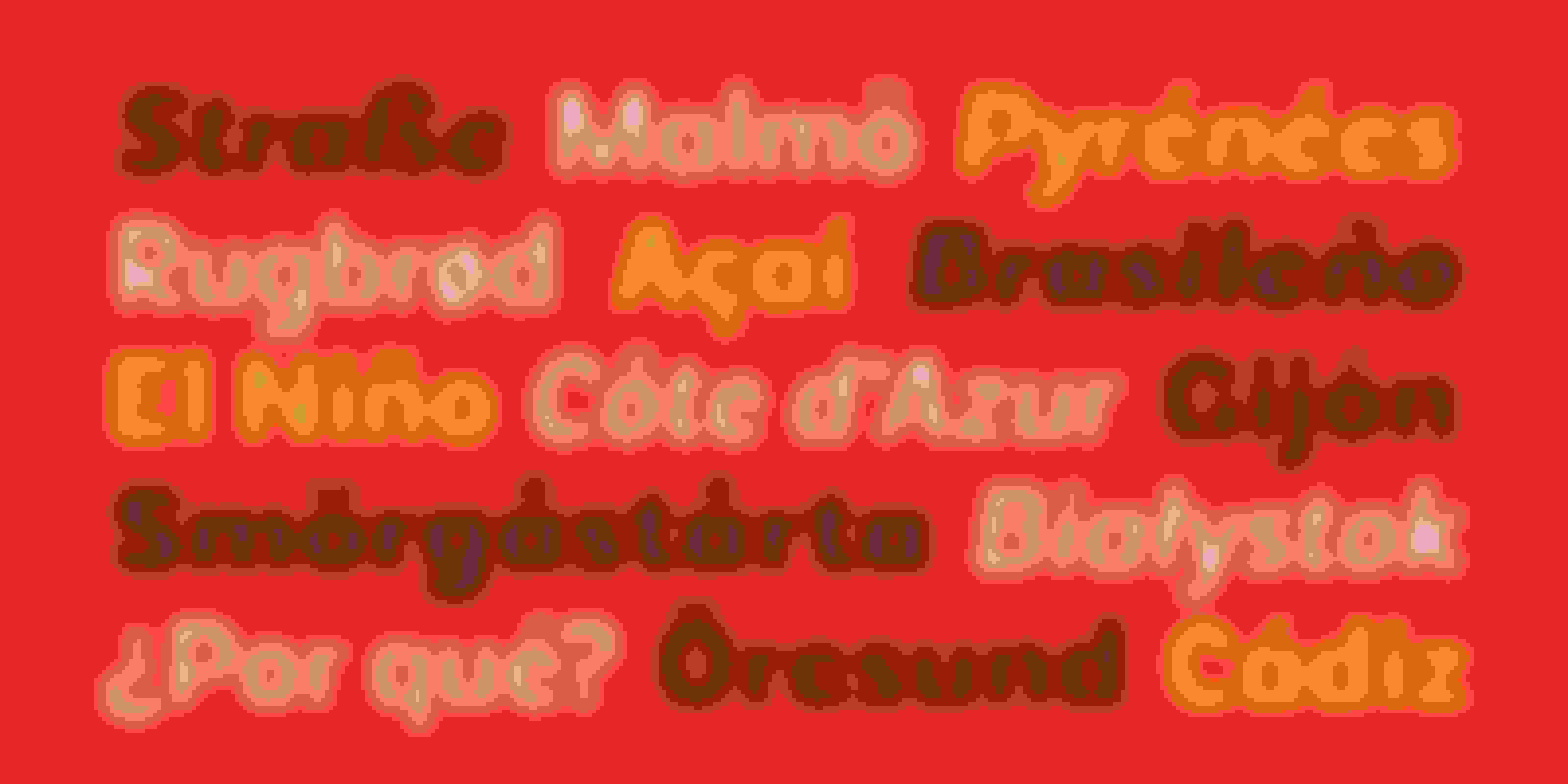
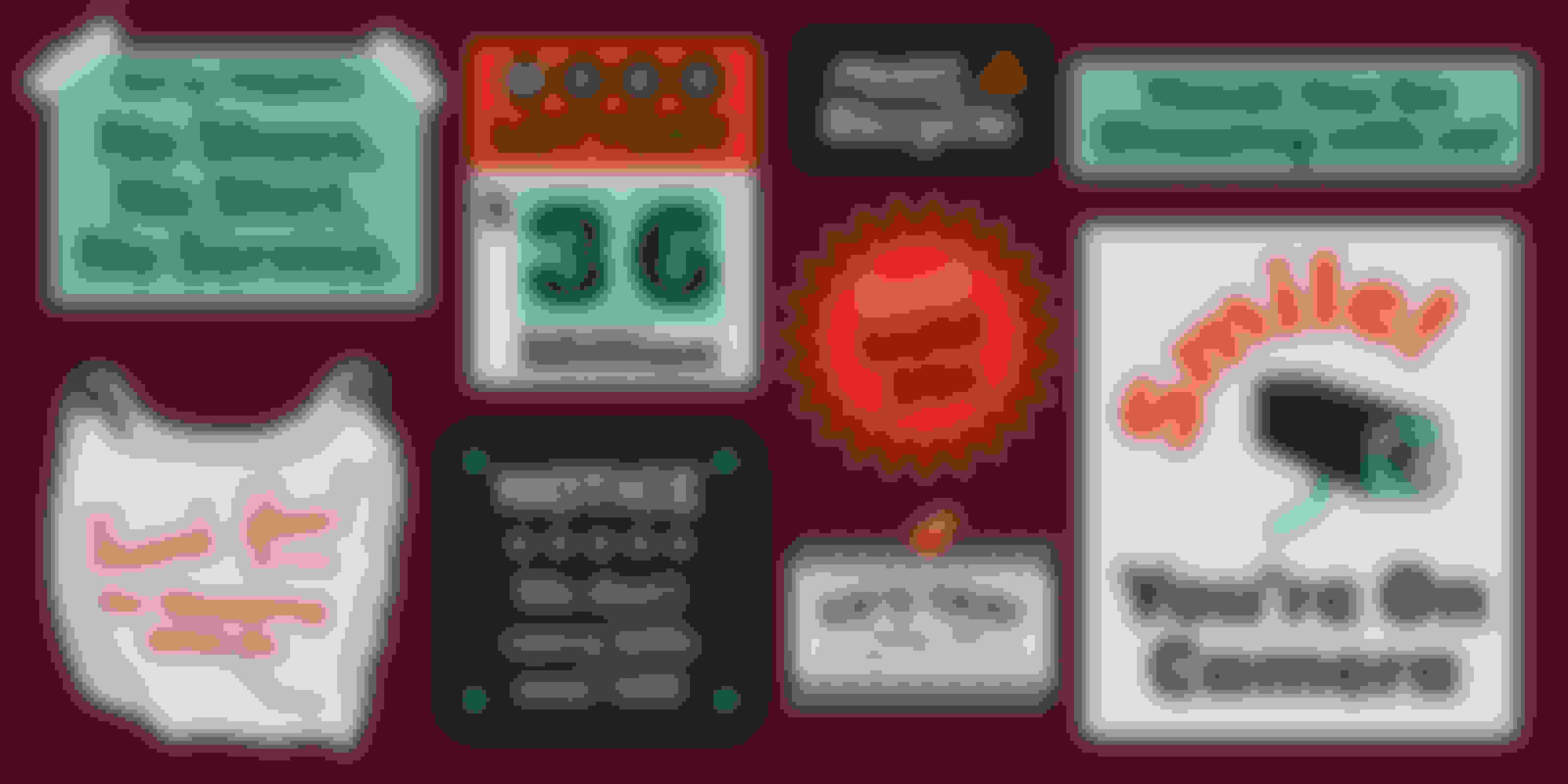
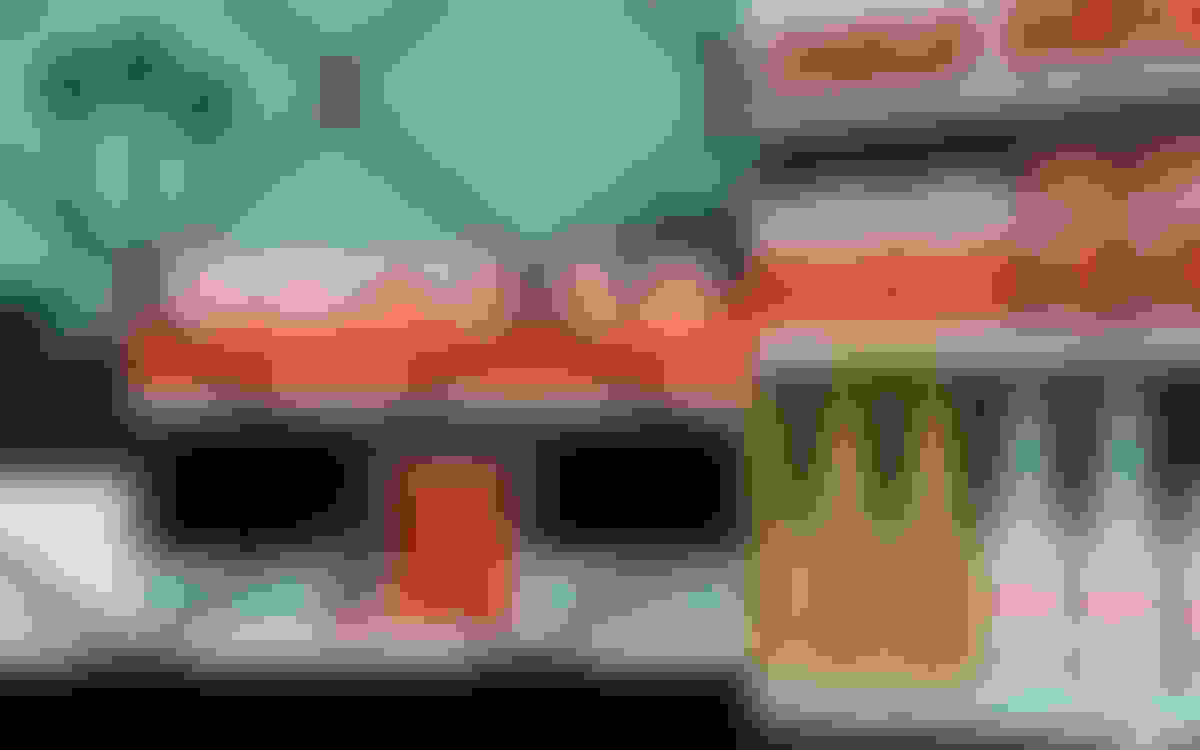
2. Faxi
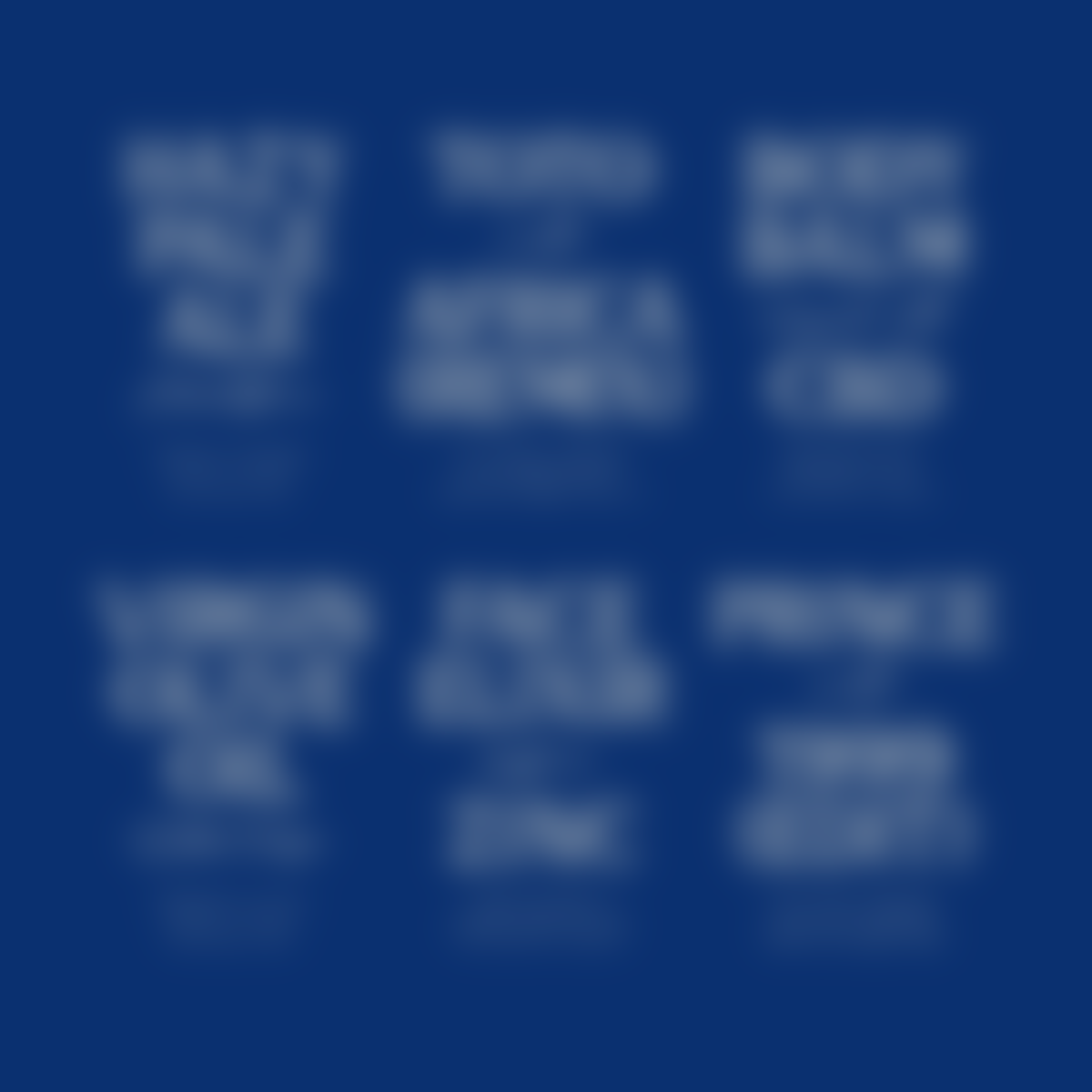
A wonderful typeface that’ll give a lot of character to any design. Faxi is a typeface designed by Jens Nilsson and Kenneth Knutsen at Good Type Foundry. Originally called Donadoni made for the Stockholm-based interior firm Maldini Studios and is now available as a commercial license.We knew this beauty needed to be added to our 2024 fonts. Although it just has one weight/style, anything that’s been set in this typeface will give plenty of character. Perfect for organic and nostalgic brands.
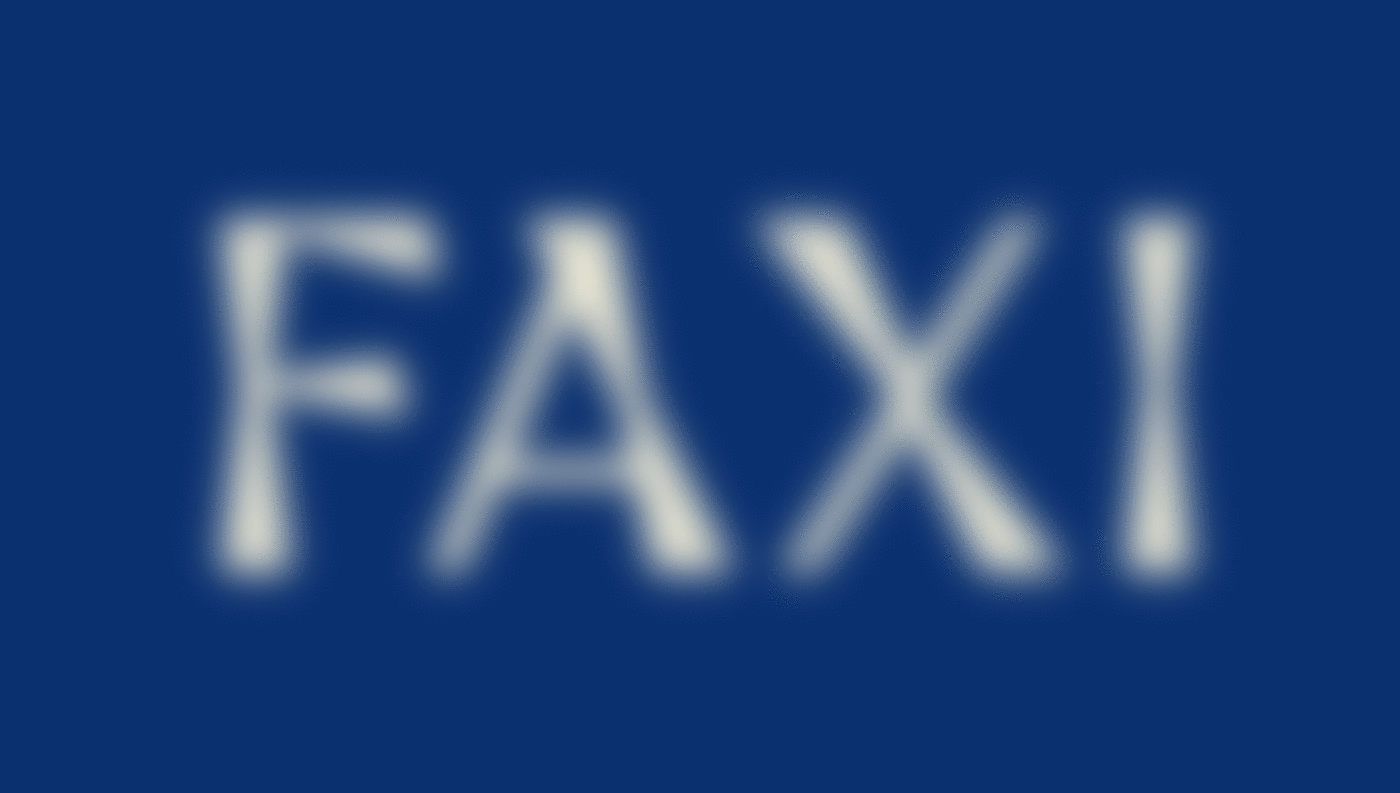
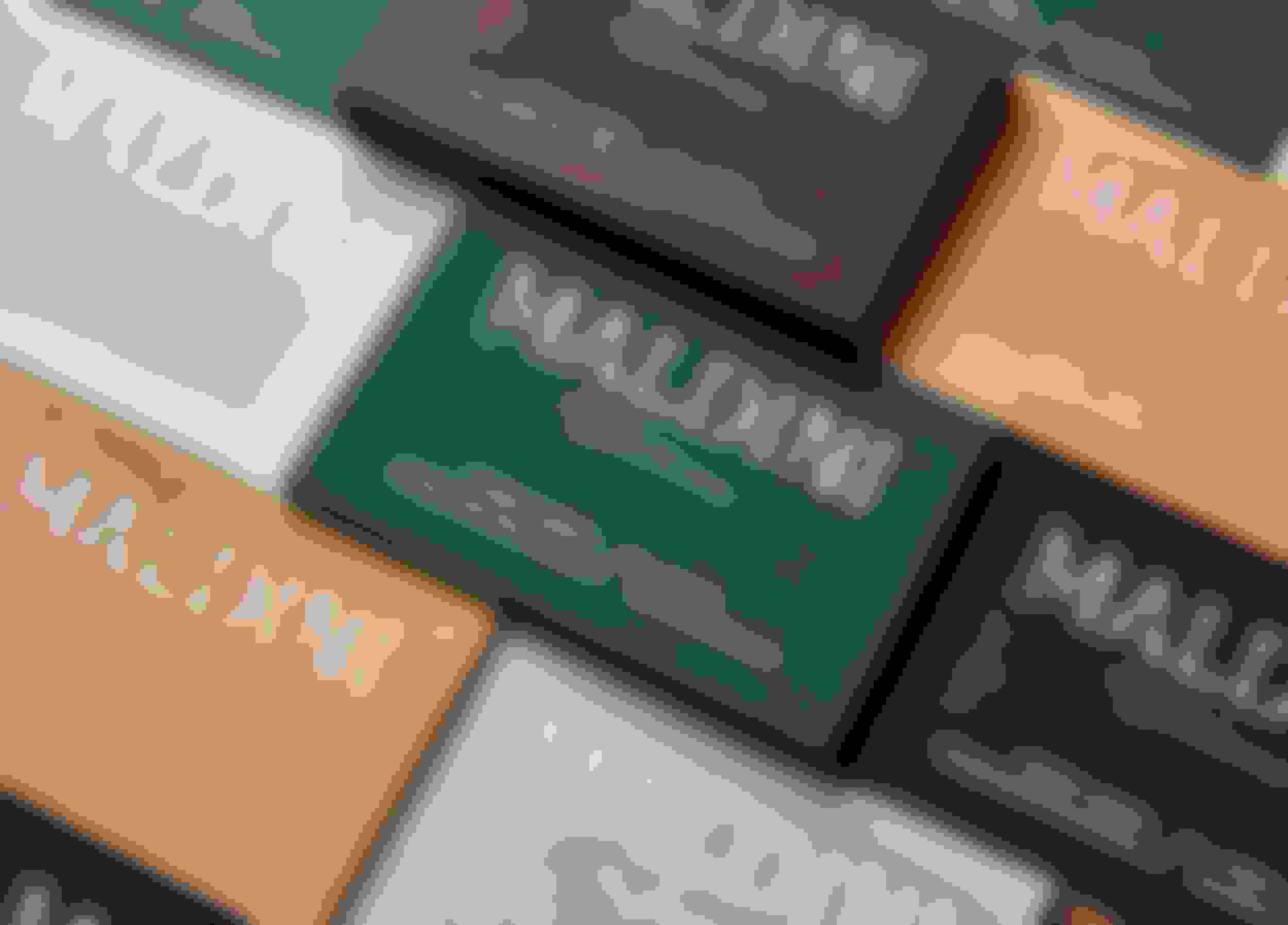
3. Shuttleblock
Created by the amazing designer, and co-owner of Hellcats USA, Clark Orr. Initially released by Fort Foundry but made available on Adobe Fonts now as well. This retro-inspired gem brings back the vibes of the early days with a robust style. Definitely one of the best free fonts out there for Adobe subscribers if you ask us.The title specimens alone are a work of art, let alone the versatility of this type family. Check out all the work from Clark Orr and Fort Foundry, we promise you will be amazed and inspired.
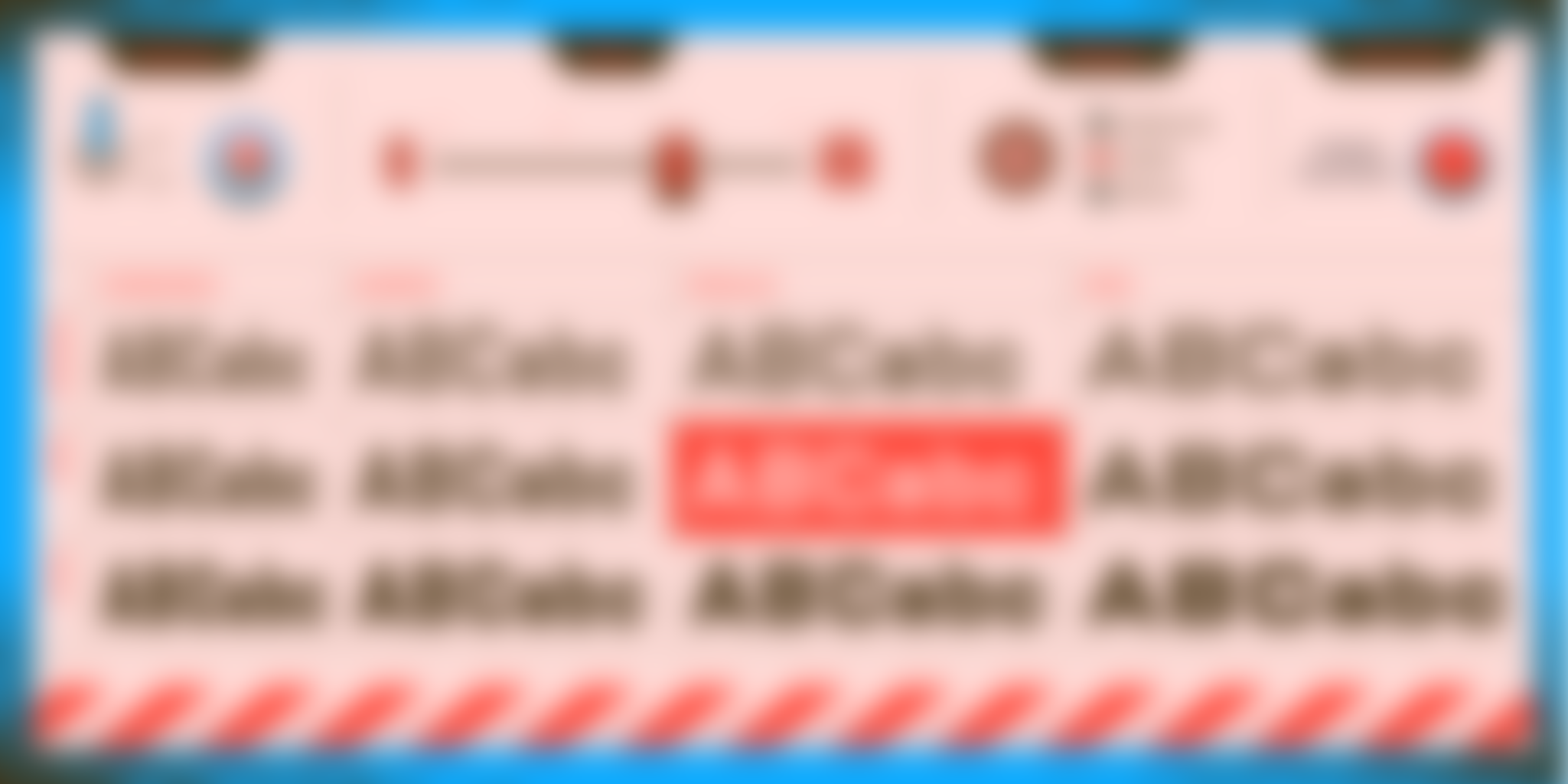
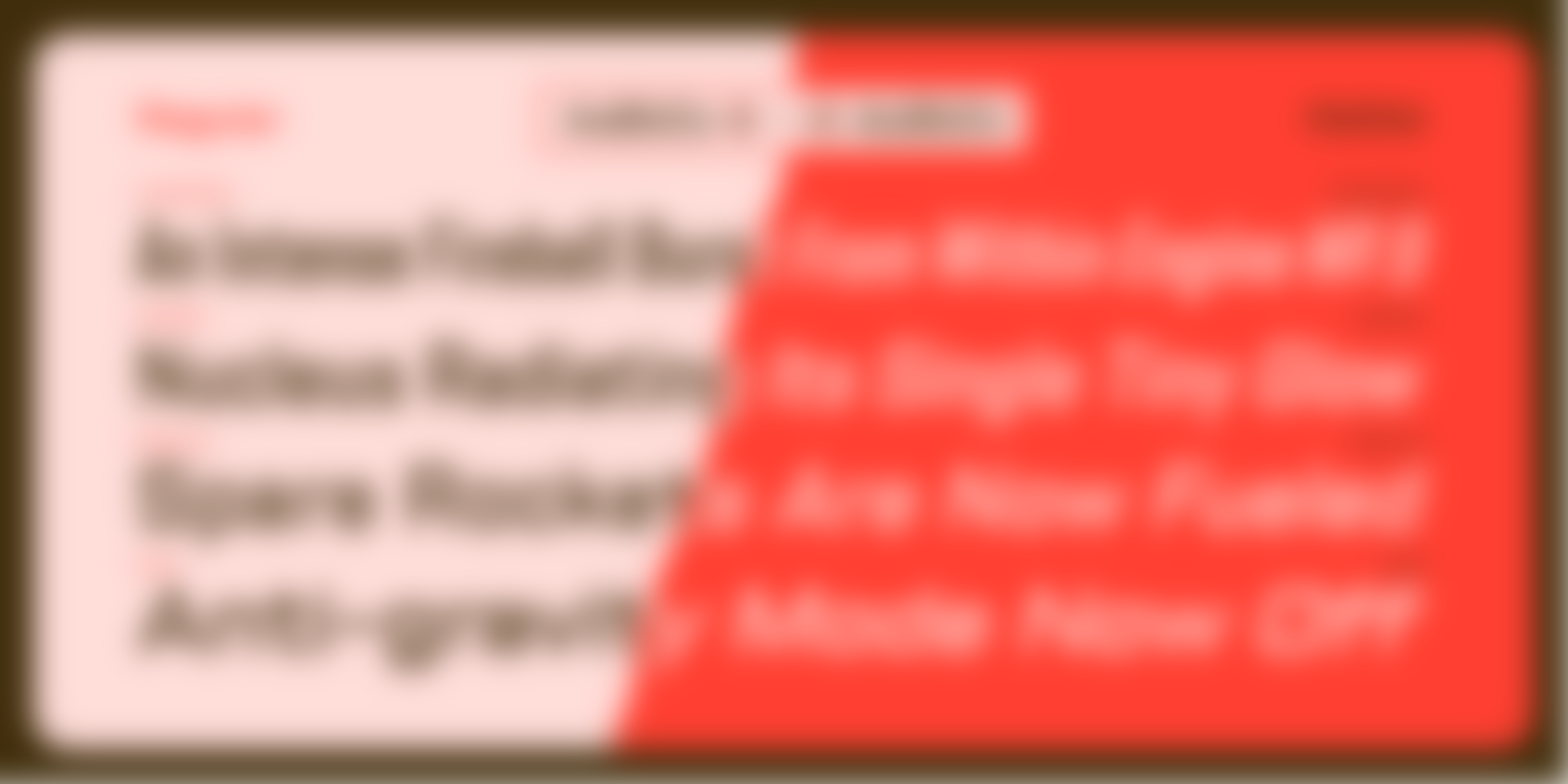
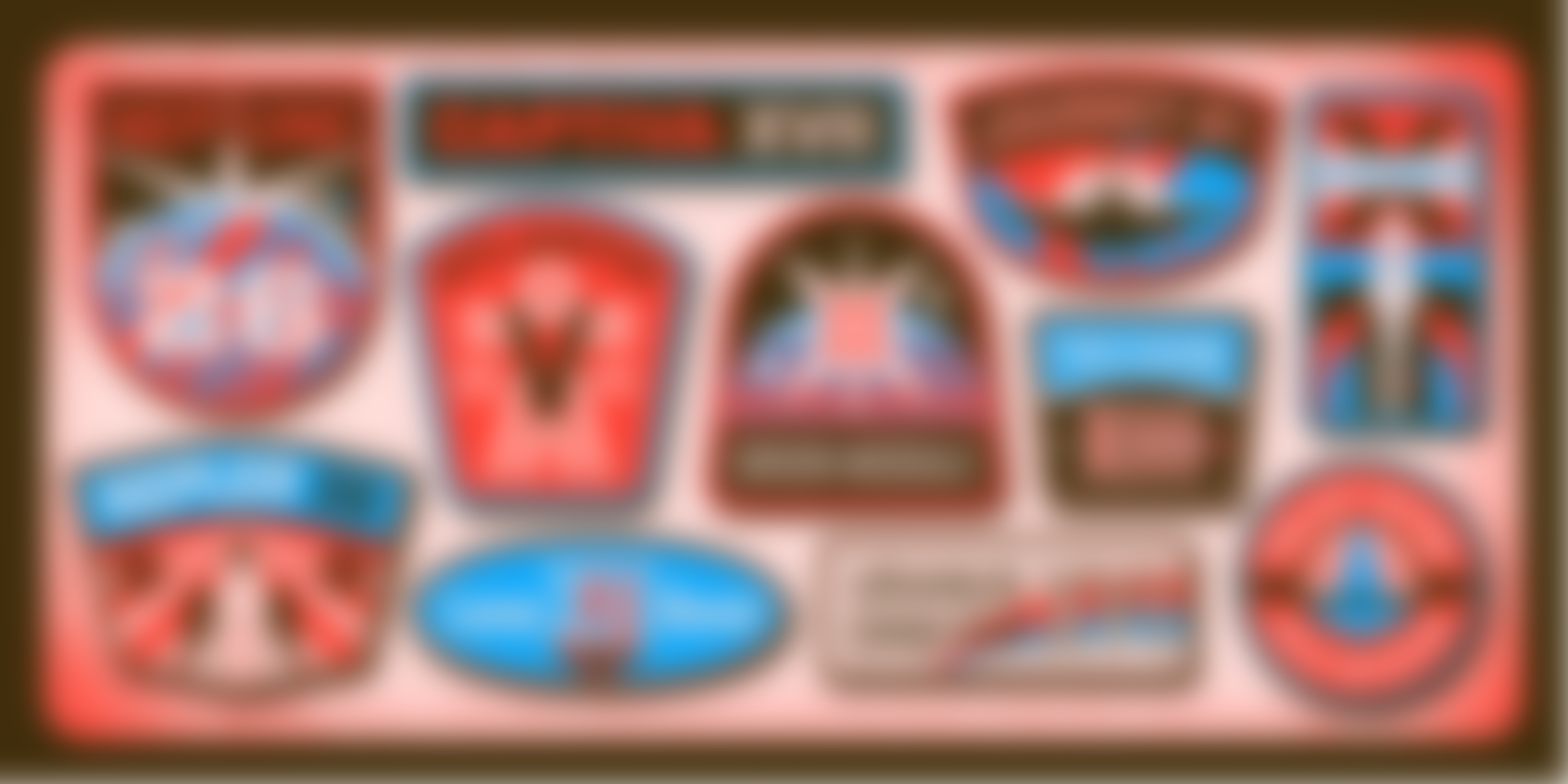
4. Acme Gothic
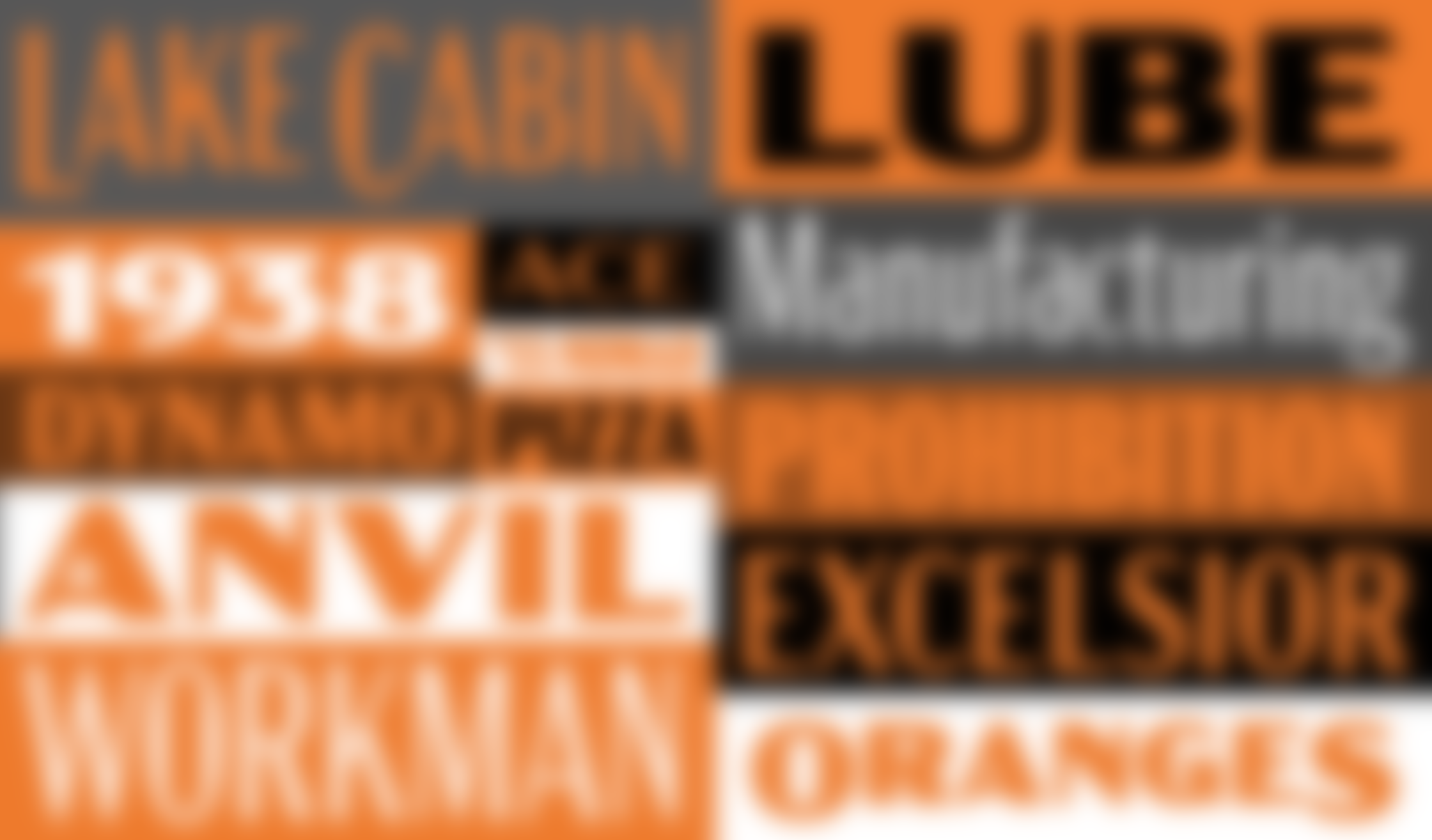
Another beautiful typeface by the amazing Mark Simonson, Acme Gothic was based on the thick-and-thin gothic lettering style popular in the U.S. in the first half of the twentieth century. There are five widths each with five weights for a total of 25 different styles. With Small Caps, Raised Small Caps, Arbitrary Fractions, and Extensive Language Support, this gothic typeface is a true workhorse for your next project.
5. Gitan Latin
Designed by Florian Runge from the Rosetta Type Foundry, Gitan is a flared sans-serif, reminiscent of engraving and stone carving. Solid and informal, the design has moderate contrast. Its cuneal writing and terminals give Gitan a sculptural appeal.Now available on Adobe Fonts and with a total of 10 different styles, this wonderful free font needed to be on our list with 2024 fonts.
6. Family
Anything that this infamous type foundry from New Zealand releases is pure gold. So it’s no surprise that their serif typeface Family, which was based on Clearface, is another gem they can add to their impressive range of work.As they describe the typeface themselves: “Family is an everyday typeface based on Clearface—originally designed by father and son, Morris Fuller and Linn Boyd Benton. As an extension of its lineage, Family keeps Clearface’s easy-going curves and idiosyncrasies, while updating it for modern use.”
7. BC Ludva
Definitely a font you can consider for all your fun, outgoing projects. This playful typeface was designed by Marek Cuban from the Briefcase Type Foundry and definitely sets a mood.With 15 different weights/styles, this quirky typeface is ready to bring some energy into any layout and is perfect for any youthful, disrupting brand that wants to do things differently.
8. Aperçu
Whenever you make a list of typefaces to keep on your radar, the amazing Colophon Foundry can’t be missing. This London-based type foundry describes itself as a “human-centric agency for typography” and when you look at their impressive range of work you immediately understand what they mean by this.All their typefaces have a sense of human touch and character to them, and brands all over the world love them for it. Since its release in August 2010, Aperçu has quickly found its position in the market, being used across a variety of different media and sectors around the world across a multitude of touchpoints.